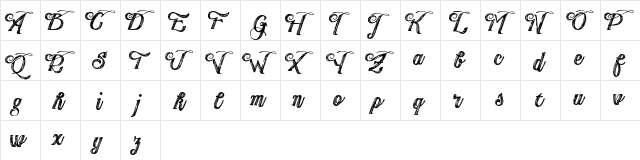
Publishing Draft Script DEMO ve Regular
| Foundry | Fontscafe.com |
| Designer | Fontscafe.com |
Design Context for Publishing Draft Script DEMO ve Typeface
Publishing Draft Script DEMO ve brings a calligraphic fluidity to the page — its connecting strokes and expressive curves give it an unmistakably human quality.
Font Pairing: Combine Publishing Draft Script DEMO ve with a simple geometric sans for maximum contrast — the tension between flowing curves and clean structure is a classic typographic pairing.
Pro Tip: Use Publishing Draft Script DEMO ve for short runs of text — names, titles, or taglines. Extended body copy in script faces tires the eye quickly.